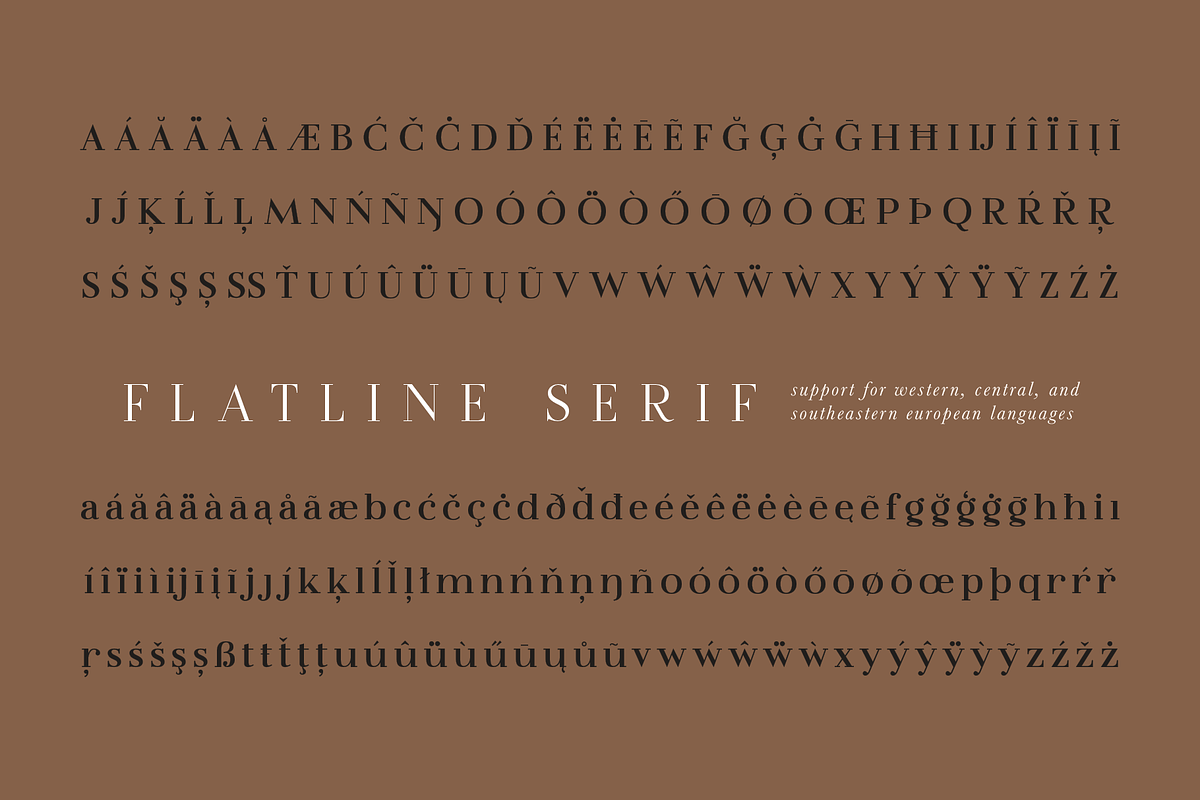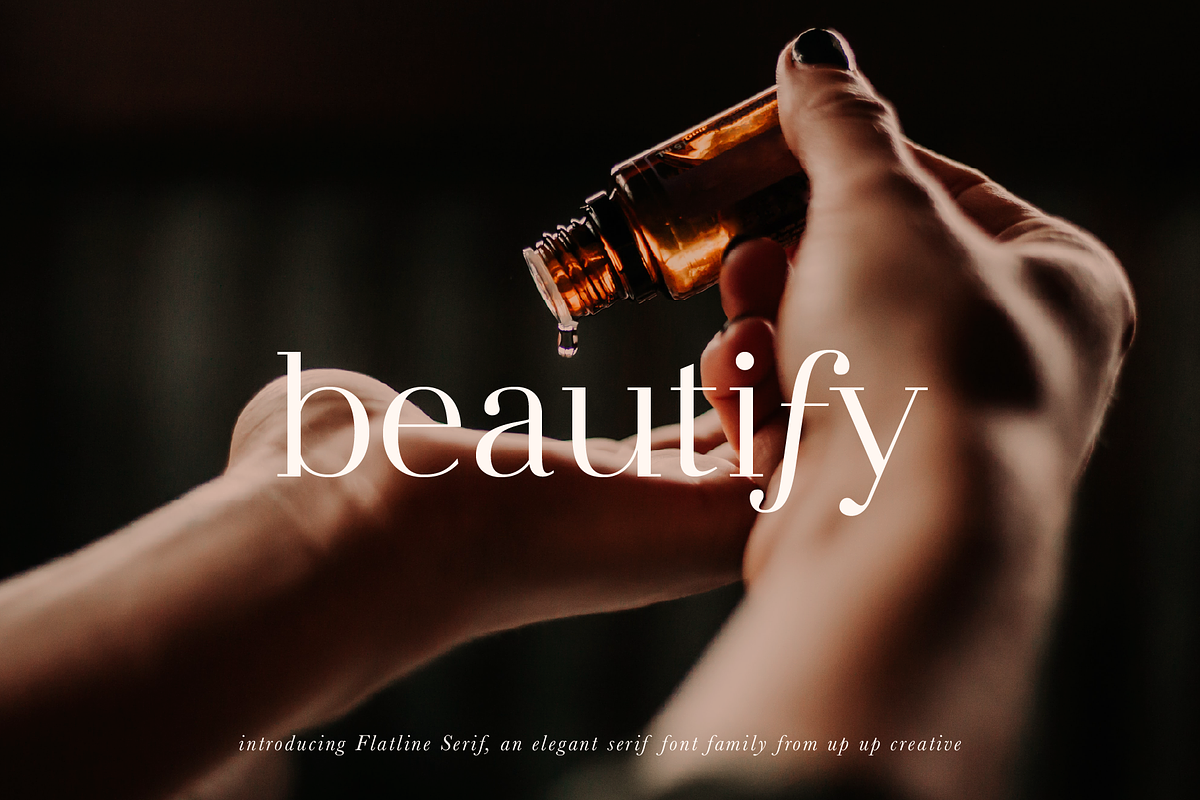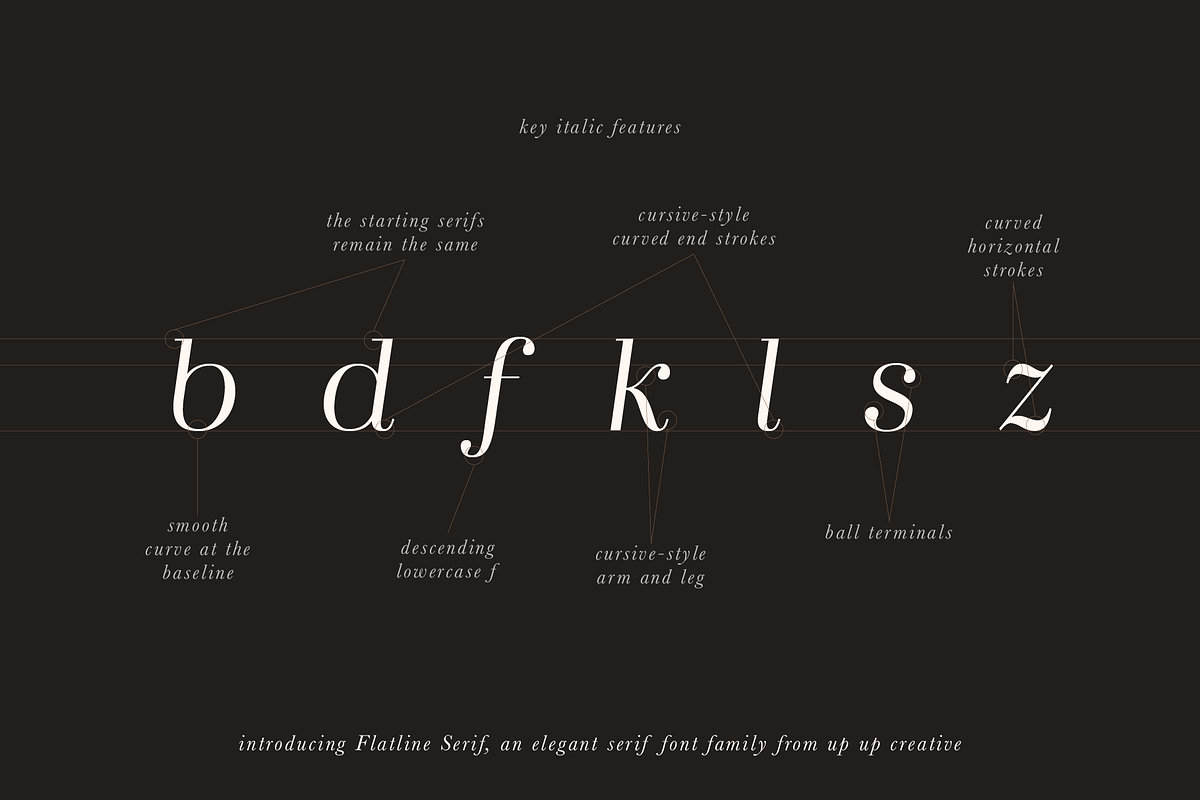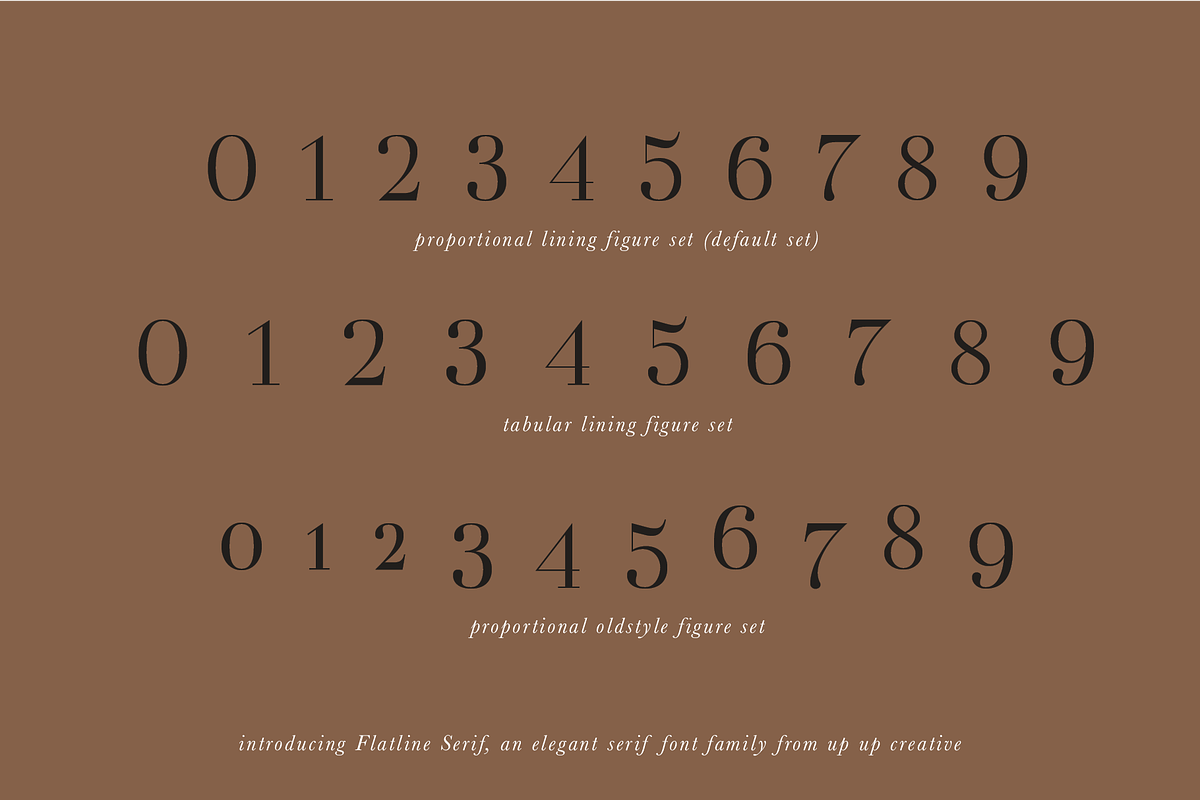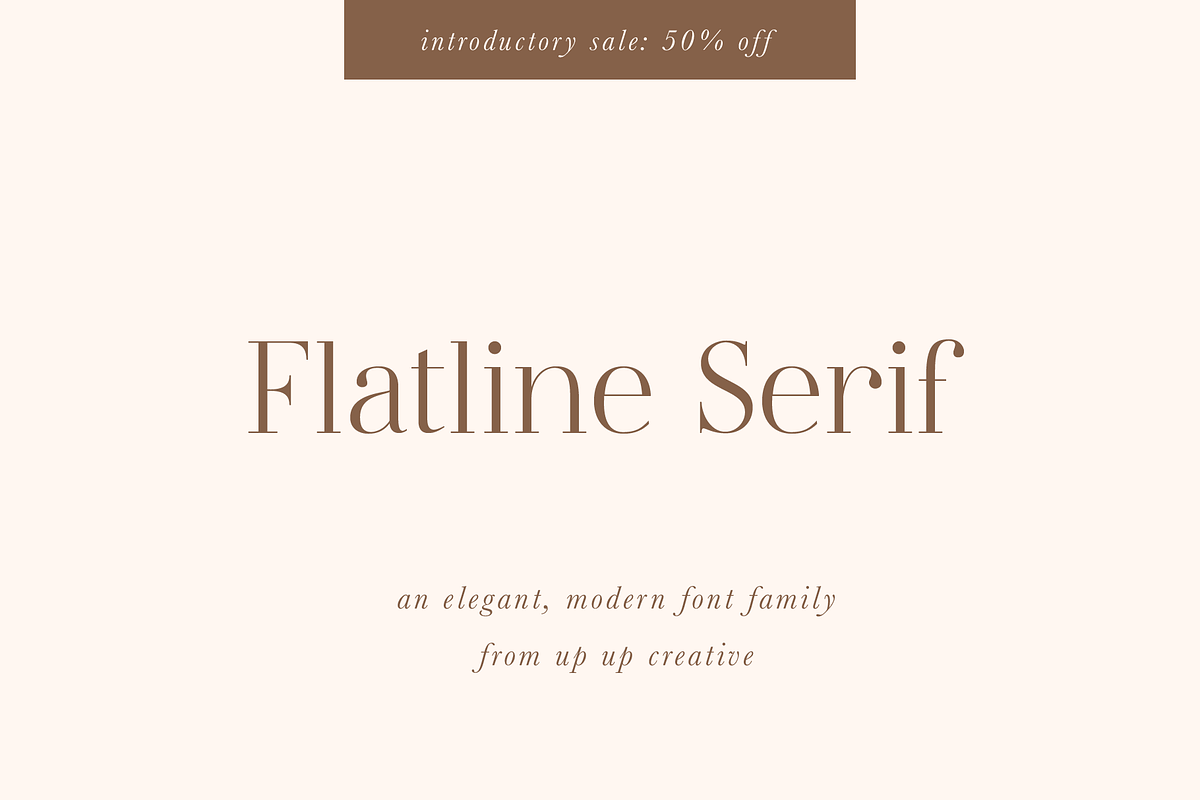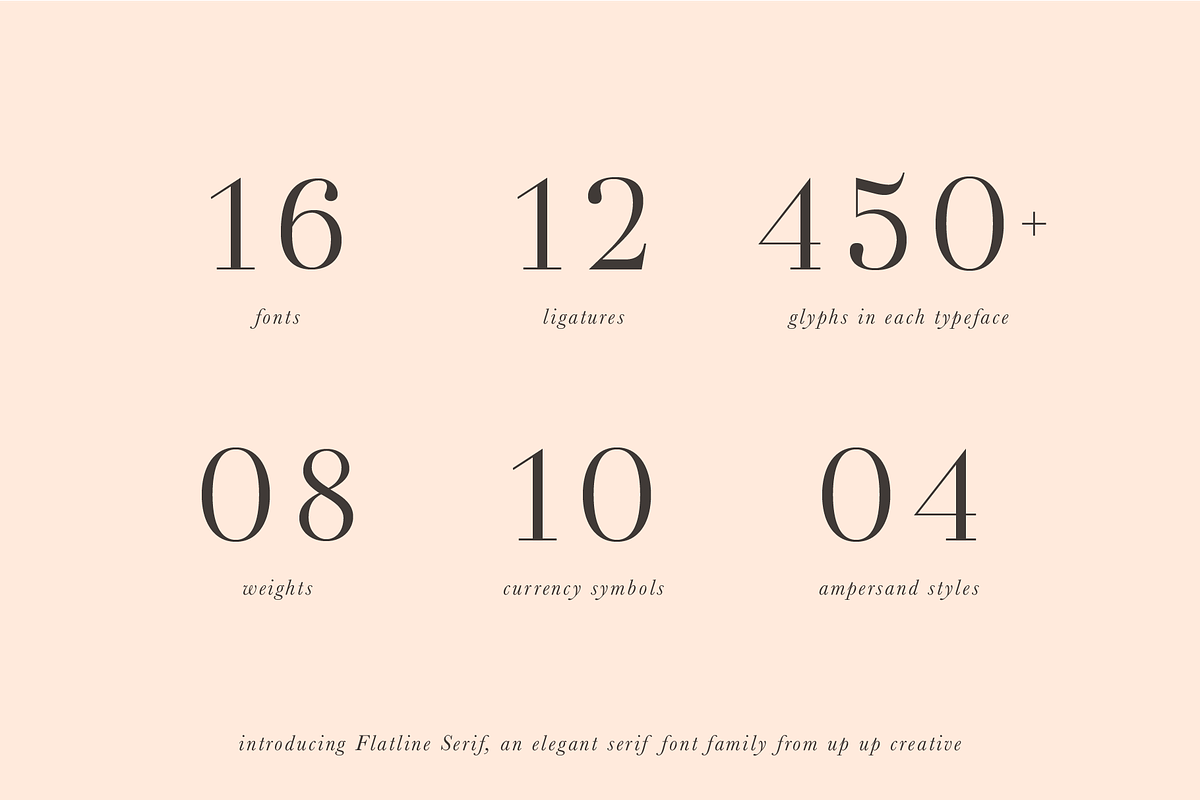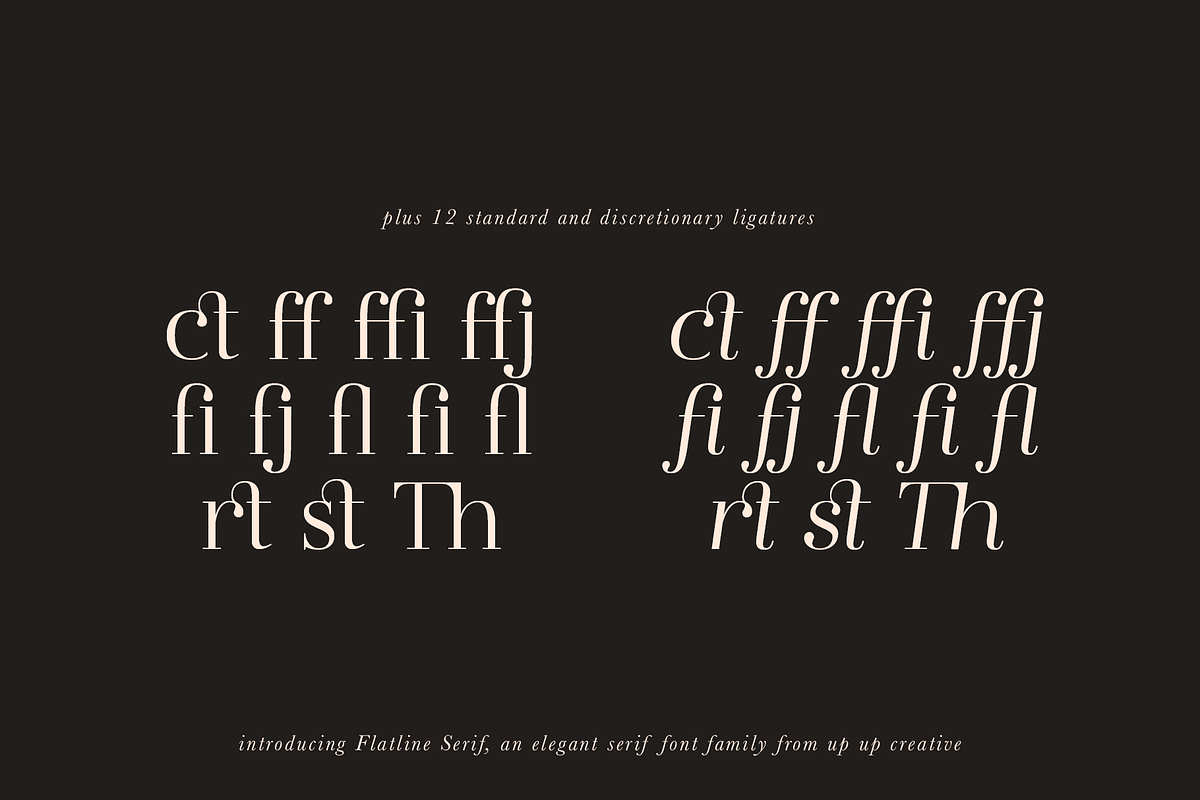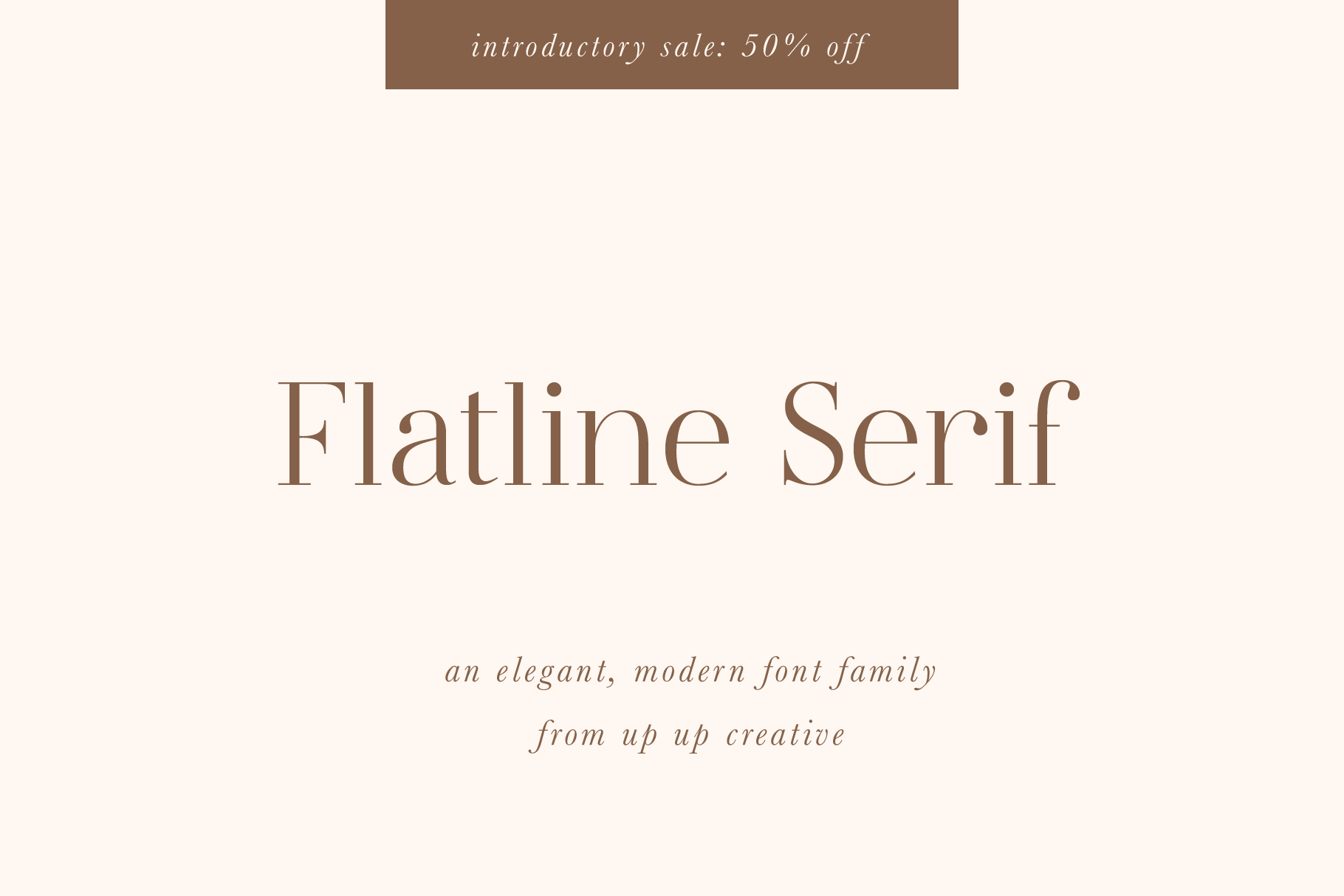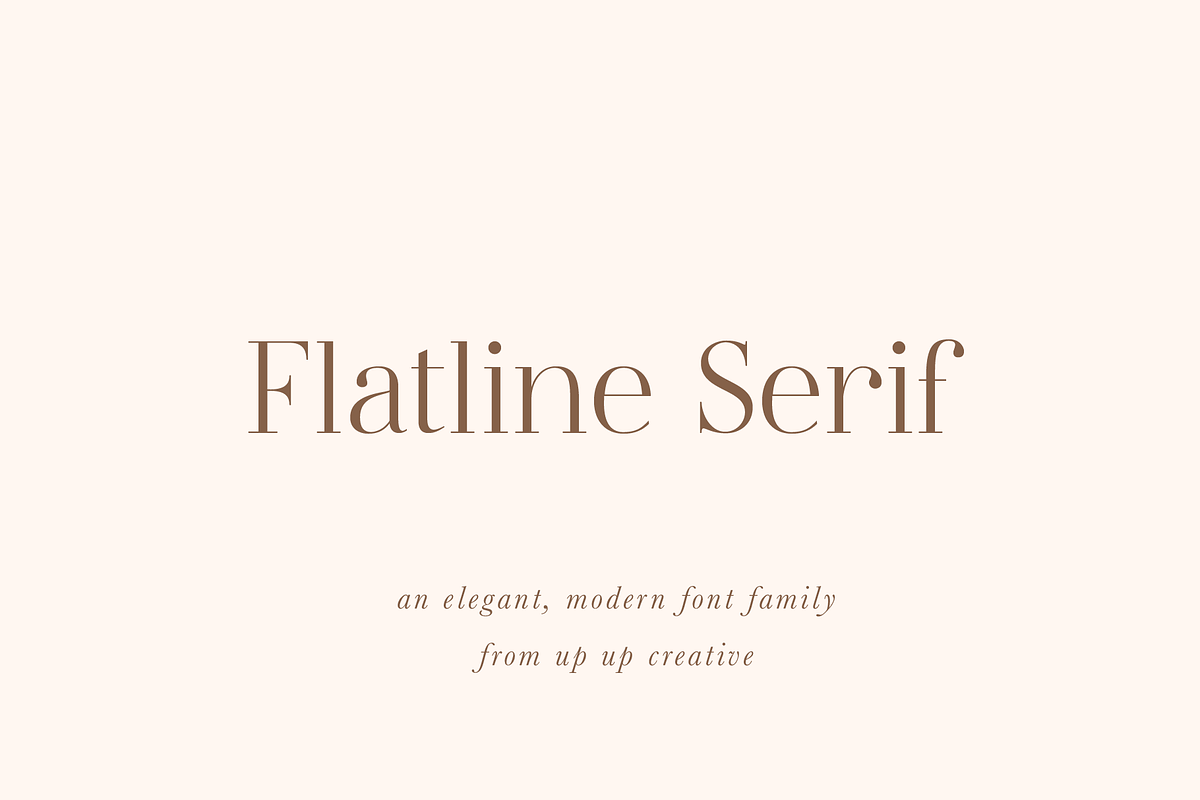
Flatline Serif Complete - 16 fonts
Introducing Flatline Serif, an elegant, modern serif font family built to coordinate with our bestselling Flatline Sans family.
** Meticulously drawn with high contrast between thick and thin strokes with the goal of making even the simplest letters look sensual, elegant, and warm. It’s perfect for headlines, editorial uses, and advertising projects. Makes beautiful luxe logos and wedding invitations, too.**
Flatline includes sixteen styles (eight weights each in both roman and italic versions), each of which includes nearly 500 glyphs. OpenType features include standard and discretionary ligatures, a small number of character variants, three figure sets, four ampersand styles, and multilingual support (including multiple currency symbols).